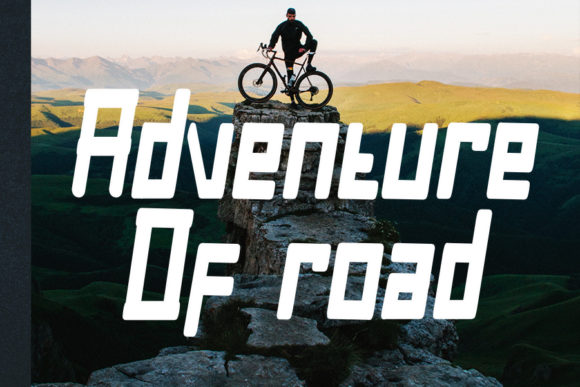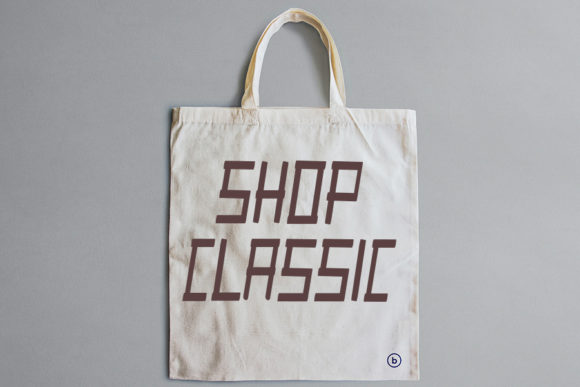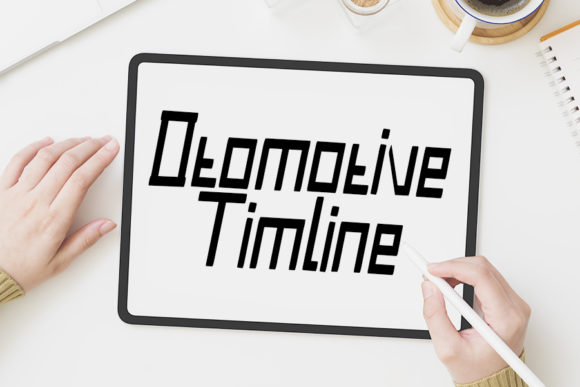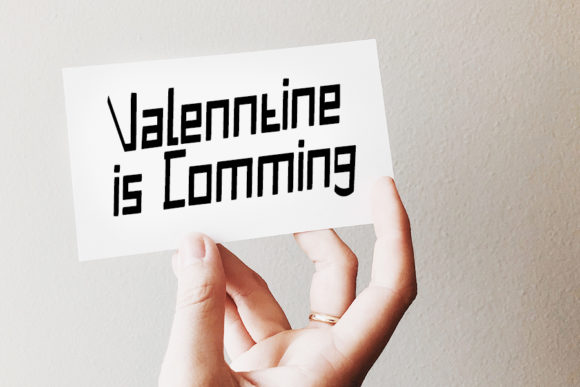
Unleash Your Creativity with Black Bold Font: A Simple yet Powerful Display Font
Are you a designer or crafter looking for a font that can elevate your work to the next level? Look no further than Black Bold Font, a simple and sharp looking display font that is sure to inspire your creations. With its sleek and modern design, Black Bold is the perfect choice for anyone looking to add a touch of sophistication and elegance to their designs.
What is Black Bold Font?
Black Bold Font is a display font that is designed to make a statement. Its bold and sharp lines make it perfect for headlines, titles, and other applications where you want to grab the attention of your audience. Despite its bold design, Black Bold is surprisingly versatile and can be used in a variety of contexts, from digital designs to print materials.
Key Features of Black Bold Font
- Simple and Sharp Design: Black Bold Font features a simple and sharp design that is perfect for creating modern and sleek designs.
- Bold and Eye-Catching: The bold lines of Black Bold Font make it perfect for headlines, titles, and other applications where you want to grab the attention of your audience.
- Versatile: Despite its bold design, Black Bold Font is surprisingly versatile and can be used in a variety of contexts, from digital designs to print materials.
- Easy to Read: Despite its bold design, Black Bold Font is easy to read, making it perfect for use in body text as well as headlines.
Endless Possibilities with Black Bold Font
With Black Bold Font, the possibilities are endless. Here are just a few ideas to get you started:
- Digital Designs: Use Black Bold Font to create stunning digital designs, including social media graphics, blog posts, and website headers.
- Print Materials: Use Black Bold Font to create eye-catching print materials, including brochures, flyers, and posters.
- Logos and Branding: Use Black Bold Font to create bold and memorable logos and branding materials.
- Signage: Use Black Bold Font to create eye-catching signage, including billboards, banners, and store signs.
Why Choose Black Bold Font?
So why choose Black Bold Font over other display fonts? Here are just a few reasons:
- Unique Design: Black Bold Font features a unique design that is sure to stand out from the crowd.
- High-Quality: Black Bold Font is a high-quality font that is designed to look great in any context.
- Easy to Use: Black Bold Font is easy to use and can be easily integrated into your design workflow.
| Font Name | Black Bold Font |
| Author | FL Space |
In conclusion, Black Bold Font is a simple and sharp looking display font that is sure to inspire your creations. With its bold and eye-catching design, versatility, and ease of use, Black Bold Font is the perfect choice for designers and crafters looking to elevate their work to the next level. So why wait? Download Black Bold Font today and explore its endless possibilities!